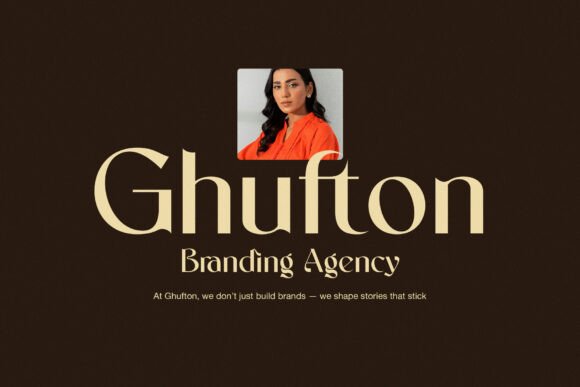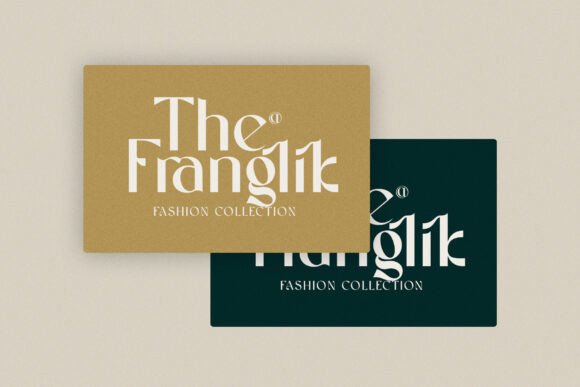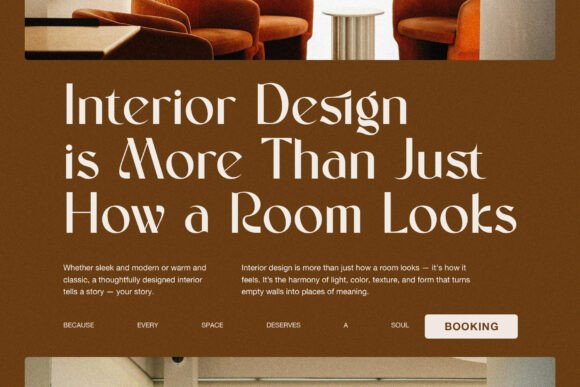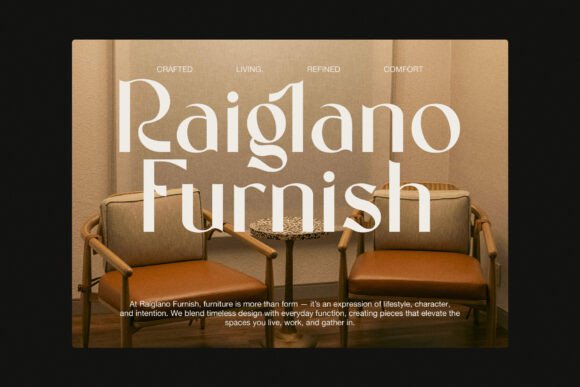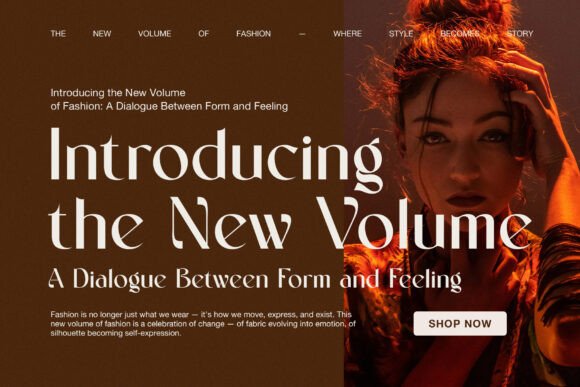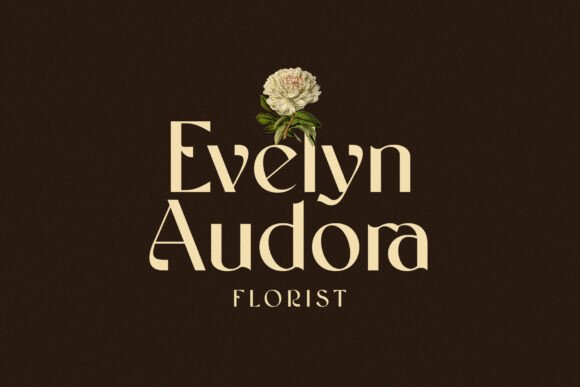
Introduction to Riglom Font
You know that moment when you’re working on a creative project and you need the perfect font to elevate it to the next level? The one that makes your design stand out from the crowd, yet still feels timeless and sophisticated? That’s where Riglom Font comes in – a stylish and contemporary serif typeface that’s sure to impress.
As a designer, you’re always on the lookout for high-quality design resources that can help you deliver exceptional results. And with Riglom Font, you’ve got just that. With its refined lines, sharp details, and graceful curves, this font is the perfect addition to any creative project. Whether you’re working on a logo design, brand identity, or website headers, Riglom Font is sure to bring a touch of elegance and sophistication to your work.
But what really sets Riglom Font apart is its versatility – it’s perfect for a wide range of applications, from fashion campaigns and cosmetics branding to restaurant menus and luxury advertisements. And with its transparent background and free download options, you can use it with confidence, knowing that you’re getting a high-quality font that will elevate your design to new heights.
Key Features of Riglom Font
- Includes a comprehensive set of characters, including uppercase and lowercase letters, numbers, and special symbols.
- Riglom Font is a versatile design resource suitable for a wide range of creative projects, from branding and advertising to digital art and publishing.
Honest Review: Riglom Font
As a designer, I’m always on the lookout for high-quality design resources that can elevate my creative projects. The Riglom Font is one such resource that caught my attention recently.
What works well: ✨ The font is incredibly versatile, with a unique blend of modern and vintage elements that make it perfect for a wide range of design applications. It’s also available for free download, which is a major plus for designers on a budget. The transparent background option is a nice touch, allowing for seamless integration with images and other design elements.
Some limitations: ⚠️ The font may not be suitable for very formal or traditional designs, as its bold and playful personality can be overwhelming in certain contexts. Additionally, the font family is relatively small, with only a few weights and styles to choose from.
Overall, I’m quite impressed with the Riglom Font. It’s a great addition to any designer’s toolkit, and I can see it being used in a variety of creative projects. With a bit of creativity and experimentation, the limitations of this font can be easily overcome.
- Perfect for modern and creative projects
The Riglom Font is suitable for various creative projects, including logos, brochures, business cards, and social media graphics. Its versatility makes it an excellent design resource for any project requiring a unique and professional look.